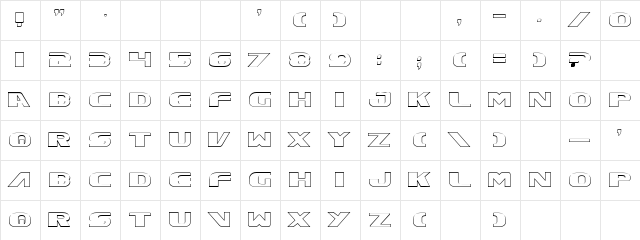
Excelsior Outline Outline
Design Context for Excelsior Outline Typeface
Excelsior Outline is built around its visual character rather than neutral utility — its distinctive forms are designed to make an impression at display sizes.
Font Pairing: Pair with a clean neutral sans-serif for body copy to let Excelsior Outline's character lead without overwhelming the composition.
Pro Tip: Treat Excelsior Outline as the centrepiece of your typographic hierarchy. One strong heading set in a decorative face can carry an entire layout.